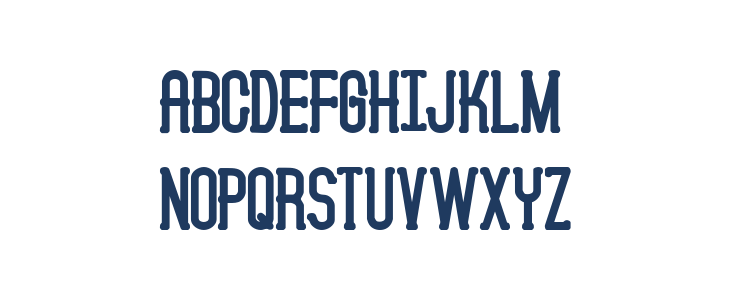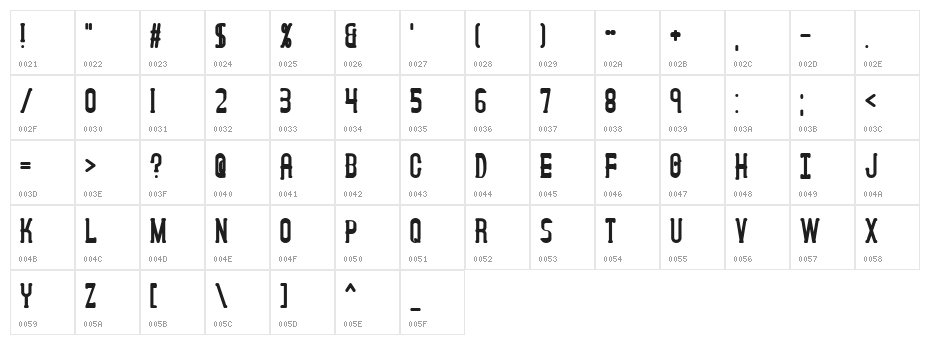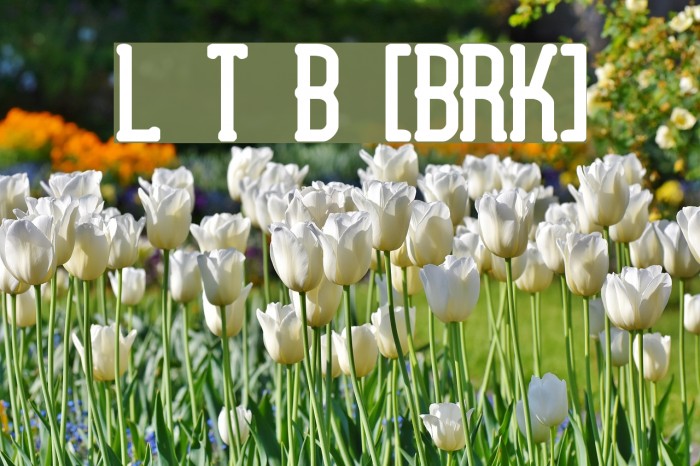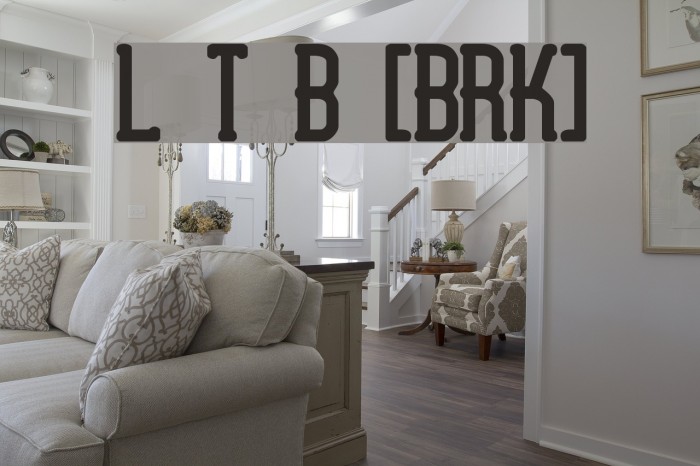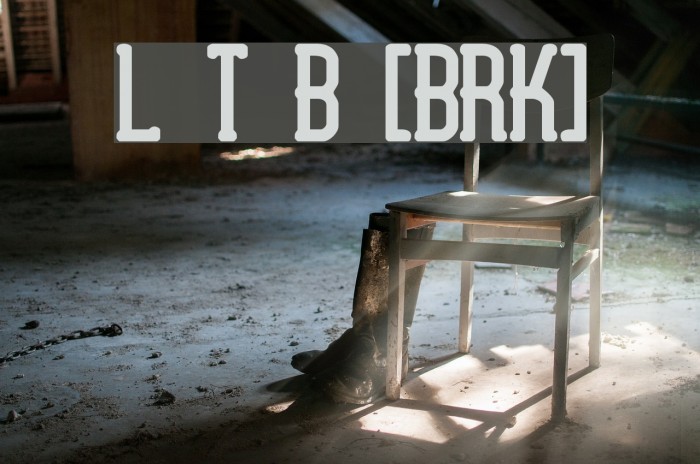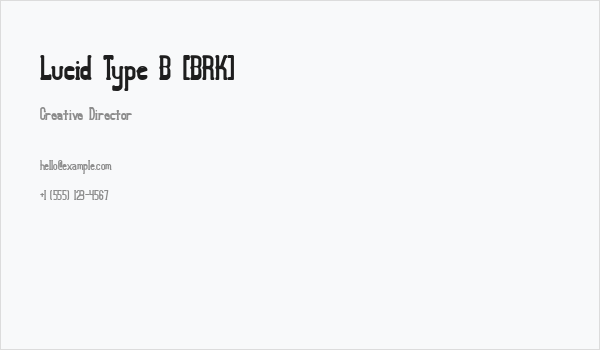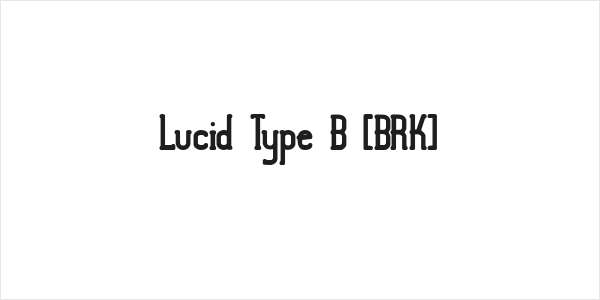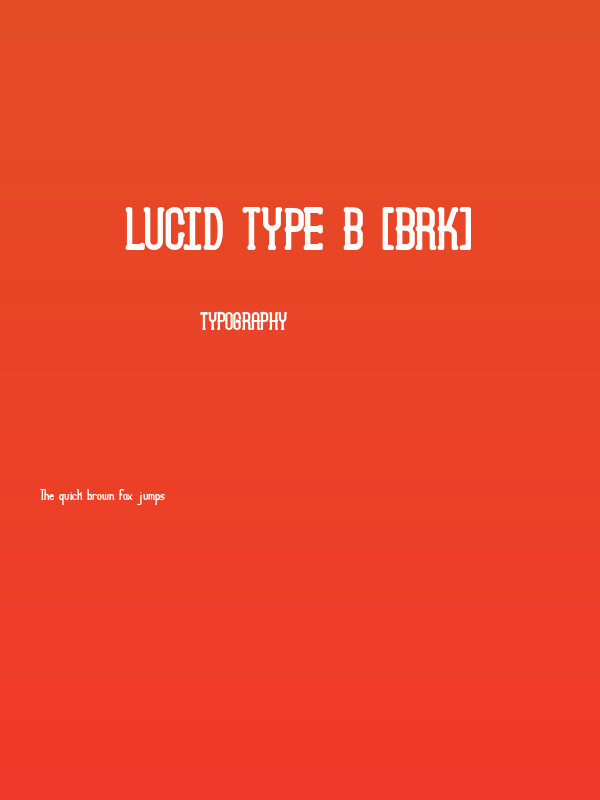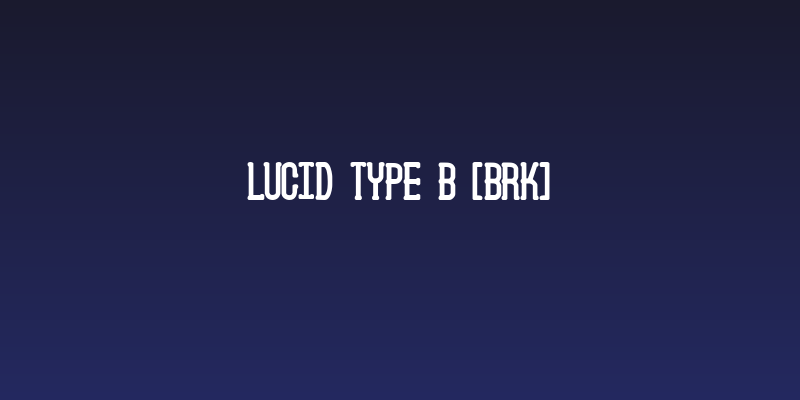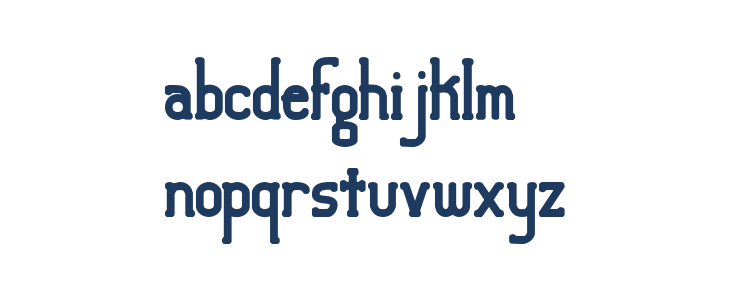
Lucid Type B [BRK] Font
Lucid Type B [BRK] Description
This font features a bold and playful design with rounded edges and a slightly condensed structure. The characters are uniform in width, giving a monospaced appearance, yet they maintain a unique style with their thick strokes and rounded terminals. The uppercase letters are tall and commanding, while the lowercase letters are more compact, creating a balanced contrast. Numbers and special characters follow the same bold and rounded aesthetic, ensuring consistency across all glyphs. This font's distinct style makes it suitable for eye-catching designs.
| Overall Style | Playful, Modern |